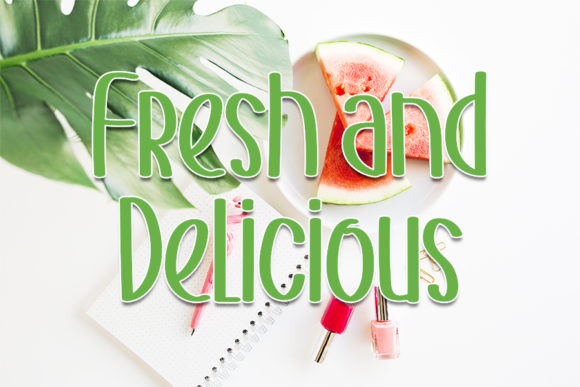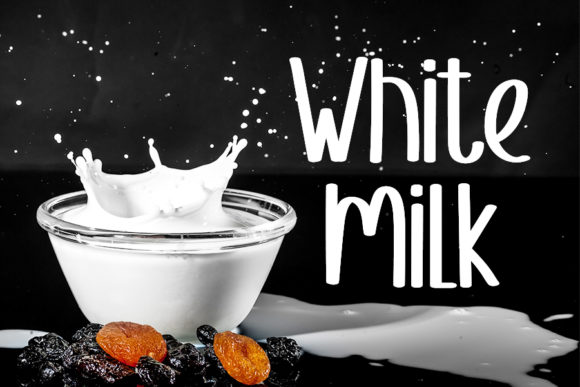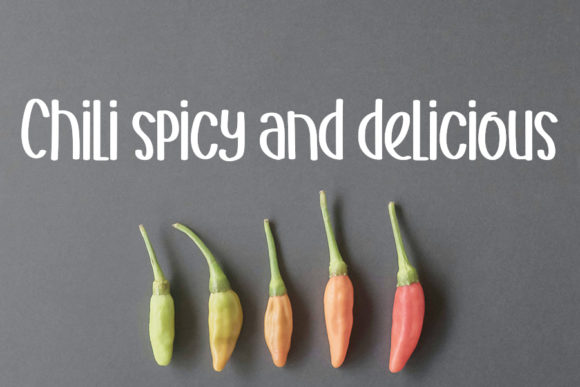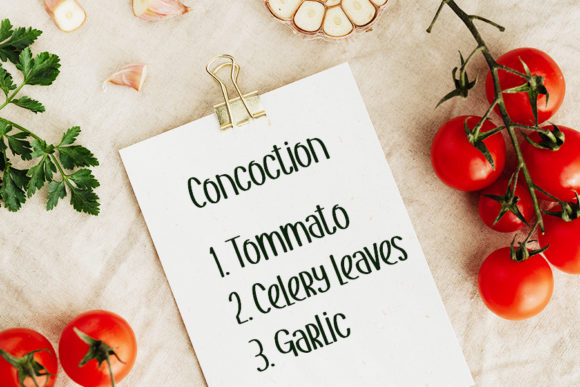
The Sweet Charm of Fruit Beautiful Font: A Designer’s Delight
I’ll never forget the time I was working on a project for a client who wanted a whimsical and natural feel to their branding. I had spent hours scouring the internet for the perfect font, but nothing seemed quite right. That was until I stumbled upon Fruit Beautiful, a sweet and natural sans serif font that stole my heart. In this article, I’ll share my experience with Fruit Beautiful, its features, and how to make the most of it in your designs.
A Personal Review: What I Love About Fruit Beautiful
Fruit Beautiful is a true gem in the world of fonts. Here are some things that I absolutely love about it:
- ✨ Sweet and Natural Feel: Fruit Beautiful has a unique, hand-crafted feel that adds a touch of warmth to any design.
- ✅ Tall and Thin Lettering: The font’s tall and thin lettering makes it perfect for headlines, titles, and other display text.
- ✨ Versatility: Fruit Beautiful can be used for a wide range of projects, from branding and packaging to posters and social media graphics.
While Fruit Beautiful is an amazing font, it’s not without its quirks. Here are a few things to keep in mind:
- 🤔 Limited Use in Body Text: Due to its tall and thin lettering, Fruit Beautiful may not be the best choice for body text, especially for longer paragraphs.
- ⚠️ Kerning Issues: As with any font, you may encounter some kerning issues, especially when using Fruit Beautiful at smaller sizes.
The Backstory Behind Fruit Beautiful
Fruit Beautiful was designed with the intention of creating a font that captures the sweetness and simplicity of natural, hand-crafted designs. The font’s creator aimed to create a typeface that would evoke feelings of warmth and approachability.
| What type of projects is Fruit Beautiful best suited for? | Fruit Beautiful is perfect for branding, packaging, posters, social media graphics, and other display text projects. |
| Can I use Fruit Beautiful for body text? | While possible, Fruit Beautiful may not be the best choice for body text due to its tall and thin lettering. It’s better suited for headlines and titles. |
| Does Fruit Beautiful support OpenType features? | Yes, Fruit Beautiful supports OpenType features like ligatures and stylistic alternates, which can add more personality to your text. |